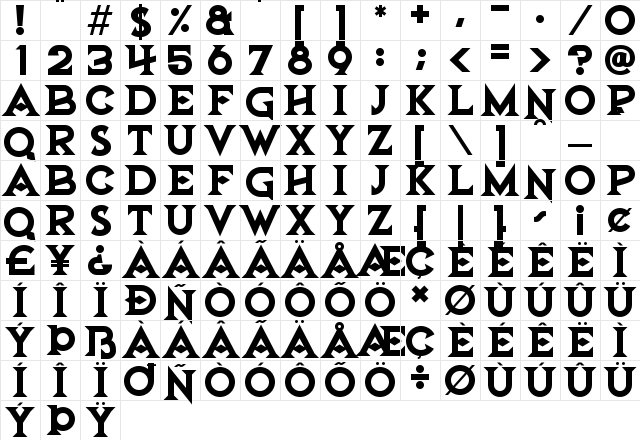
Complete Dungeon Depths Regular glyph index. Displaying only characters natively supported by Dungeon Depths Regular font.
Dungeon Depths is a composed and adaptable typeface that performs quietly and consistently across a wide range of design contexts.